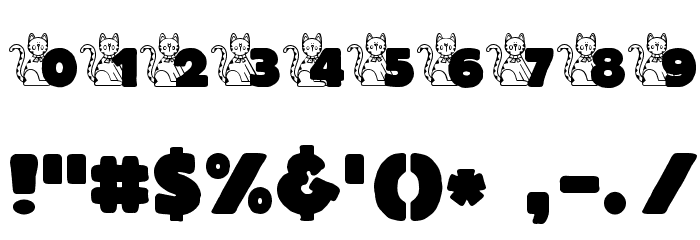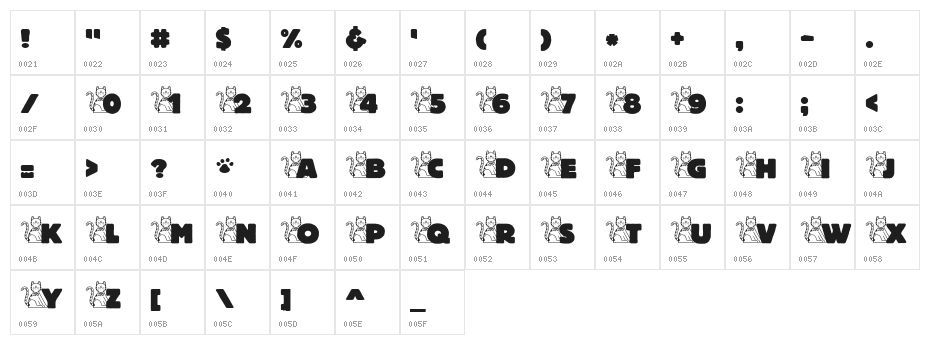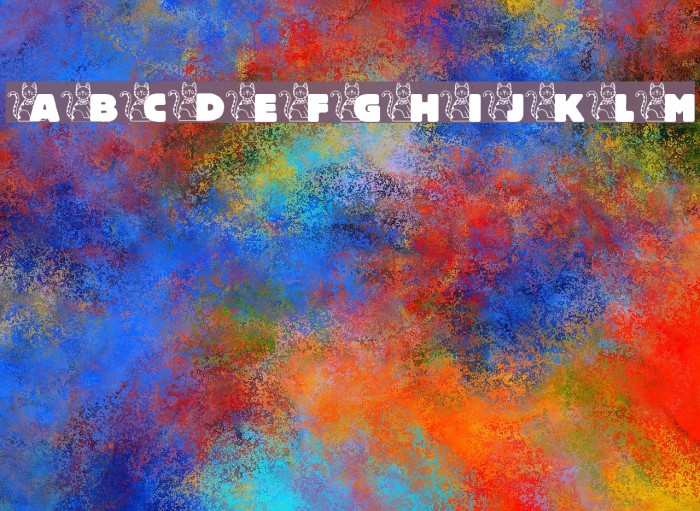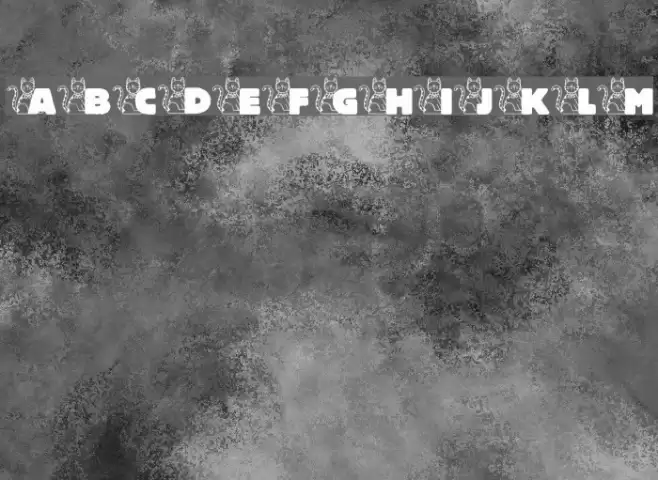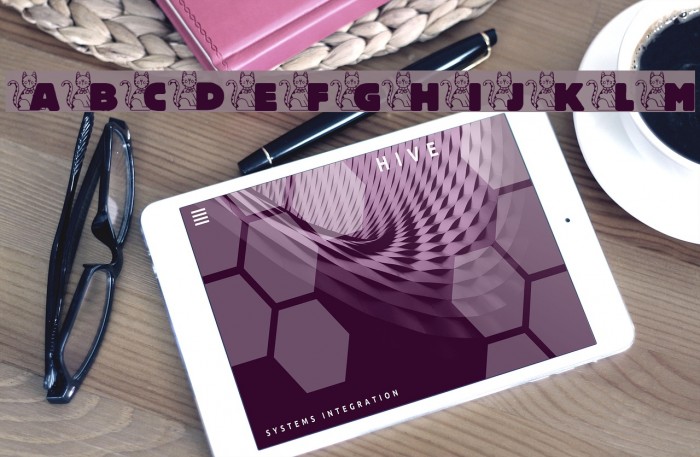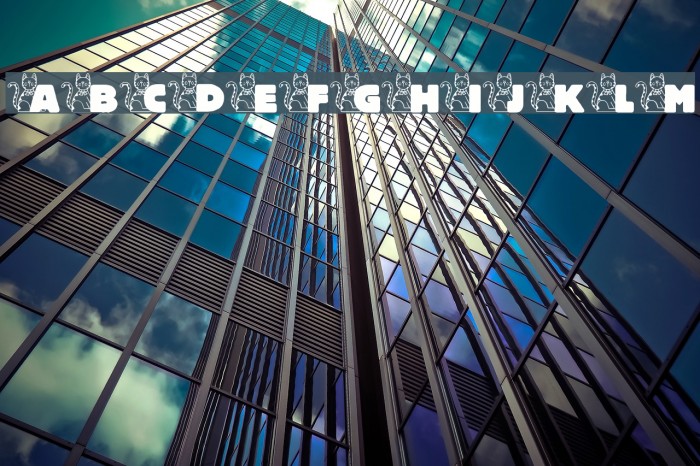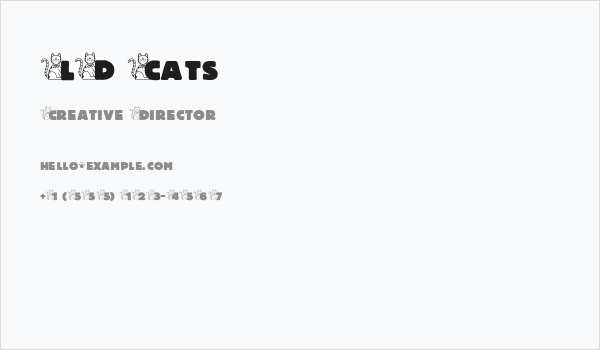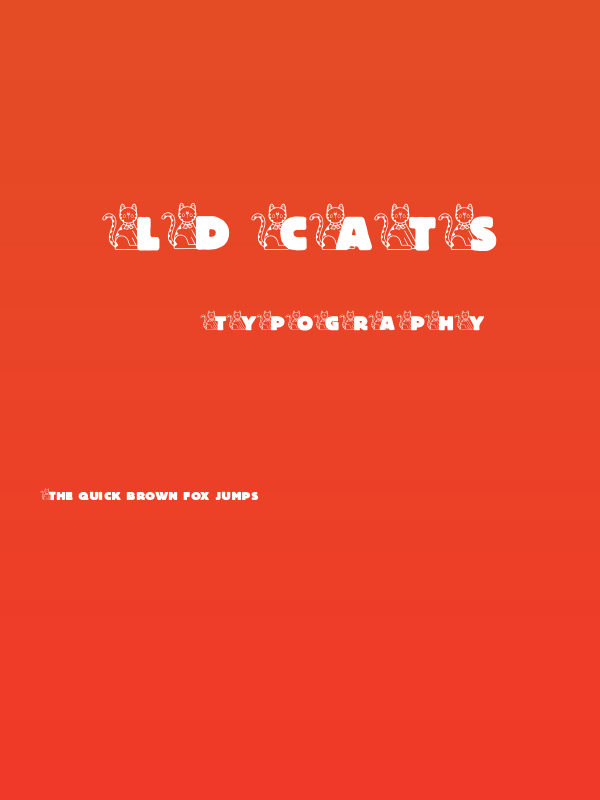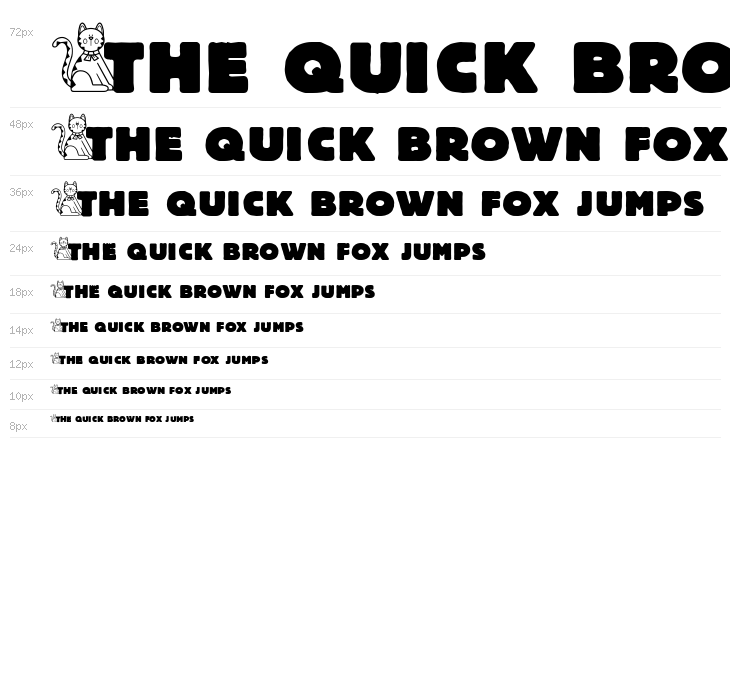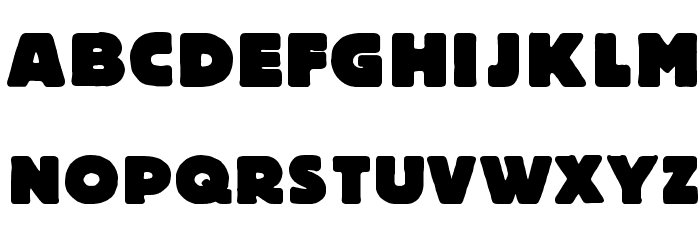
LD Cats Font
LD Cats Description
This playful and whimsical font features bold, rounded letters with a unique twistΓ’β¬βeach character is accompanied by a charming cat illustration. The uppercase letters are solid and robust, providing a strong visual impact, while the numbers and special characters maintain the same delightful cat motif. The font's design is both fun and eye-catching, making it ideal for projects that require a touch of creativity and humor. Its decorative style is perfect for children's materials, pet-related branding, or any design that aims to convey a sense of joy and playfulness.
| Overall Style | Playful, Whimsical, Decorative |
| Proposed Projects | Ideal for children's books, pet store branding, playful posters, and creative invitations. |